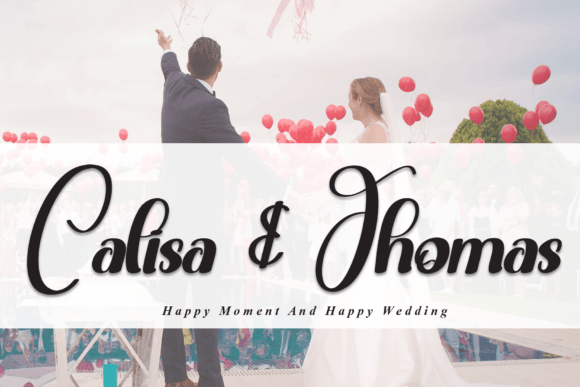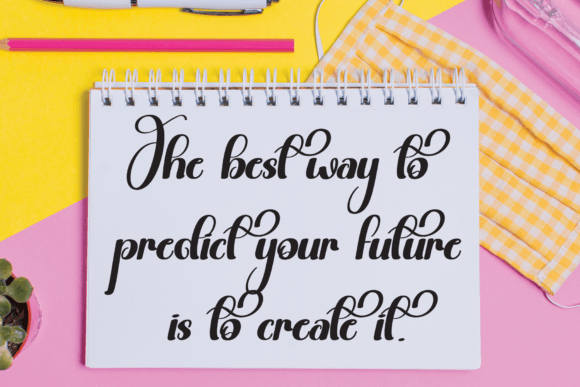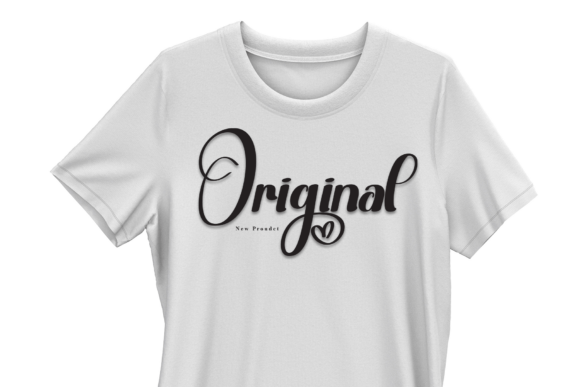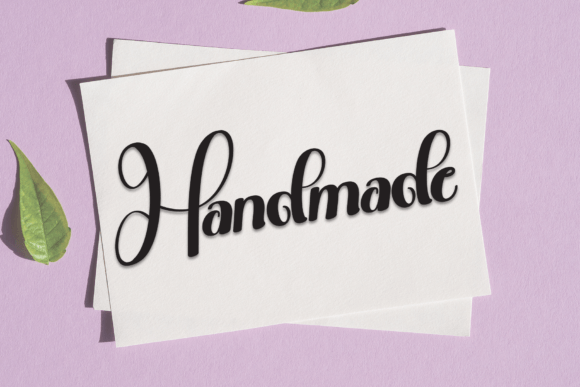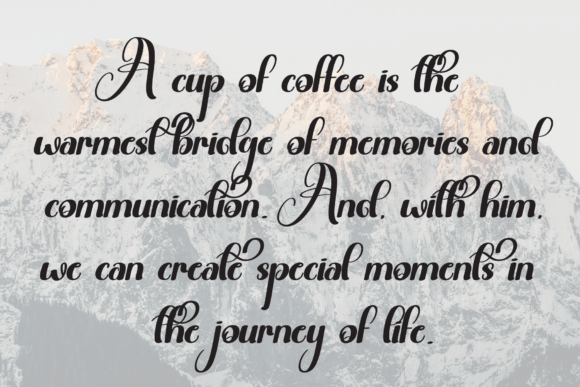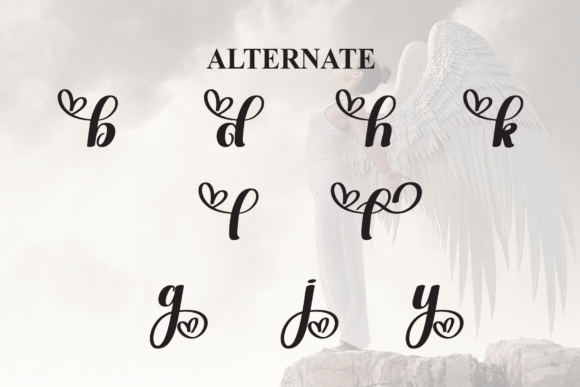
Introducing Angel Font: The Sweetest Handwritten Display Font for Your Designs
Are you looking for a font that exudes warmth, friendliness, and playfulness? Look no further than Angel Font, a delightful handwritten display font that’s perfect for adding a touch of whimsy to your designs. Whether you’re a designer, crafter, or DIY enthusiast, this charming font is sure to bring a smile to your face and inspire your creativity.
The Charm of Angel Font
Angel Font is a carefully crafted handwritten display font that’s designed to evoke a sense of joy and friendliness. Its gentle charm and playful energy make it the perfect choice for a variety of design projects, from wedding invitations and greeting cards to posters and social media graphics. With its sweet and approachable vibe, this font is sure to capture the hearts of your audience and leave a lasting impression.
One of the standout features of Angel Font is its suitability for wedding invitations and cards. Its elegant yet playful script makes it an ideal choice for couples looking to add a personal touch to their special day. Whether you’re designing a formal wedding invitation or a more casual save-the-date card, Angel Font is sure to bring a touch of romance and whimsy to your design. And with its versatility, you can use it to create a wide range of stationery items, from thank-you cards to baby announcements.
Bring Your Designs to Life with Angel Font
Angel Font is more than just a font – it’s a design tool that can help you bring your creative vision to life. With its unique blend of playfulness and sophistication, this font can add a spark of energy to even the most mundane design project. Whether you’re designing for print or digital, Angel Font is the perfect choice for anyone looking to add a touch of personality to their work. So why settle for a generic font when you can dance with the rhythm of creativity and make your designs truly unforgettable?
Key Features of Angel Font
- Handwritten display font: Angel Font is a carefully crafted handwritten font that’s designed to evoke a sense of warmth and friendliness.
- Sweet and playful energy: This font exudes a playful and whimsical vibe that’s perfect for adding a touch of personality to your designs.
- Perfect for wedding invitations and cards: Angel Font is an ideal choice for couples looking to add a personal touch to their wedding stationery.
- Versatile and easy to use: This font can be used for a wide range of design projects, from print to digital.
Tips for Using Angel Font
To get the most out of Angel Font, here are a few tips to keep in mind:
- Use it sparingly: While Angel Font is a beautiful font, it’s best used sparingly to add a touch of personality to your design.
- Experiment with colors: This font looks great in a variety of colors, so don’t be afraid to experiment and find the perfect hue for your design.
- Pair it with other fonts: Angel Font can be paired with a range of other fonts to create a unique and visually appealing design.
Angel Font is a delightful handwritten display font that’s perfect for designers, crafters, and DIY enthusiasts looking to add a touch of whimsy to their designs. With its sweet and playful energy, this font is sure to bring a smile to your face and inspire your creativity. Whether you’re designing wedding invitations, greeting cards, or social media graphics, Angel Font is the perfect choice for anyone looking to add a personal touch to their work. So why wait? Download Angel Font today and start bringing your designs to life!